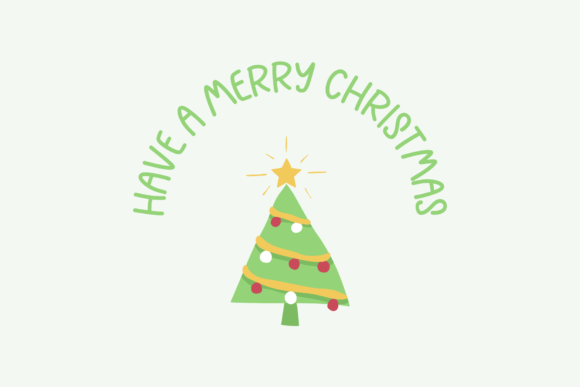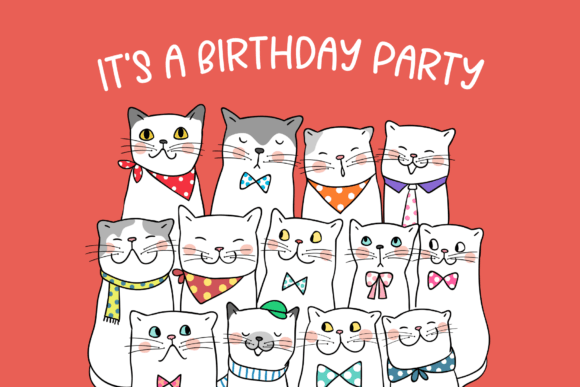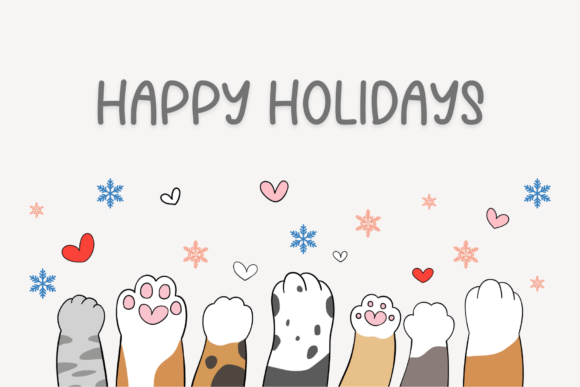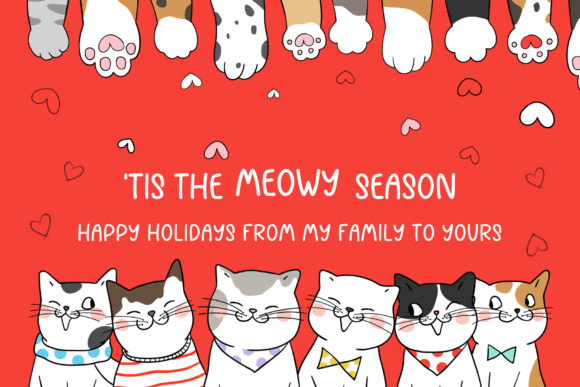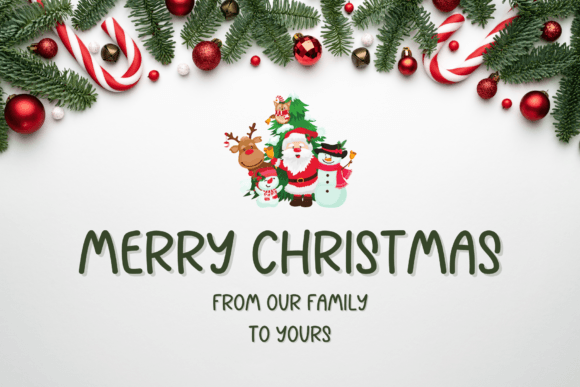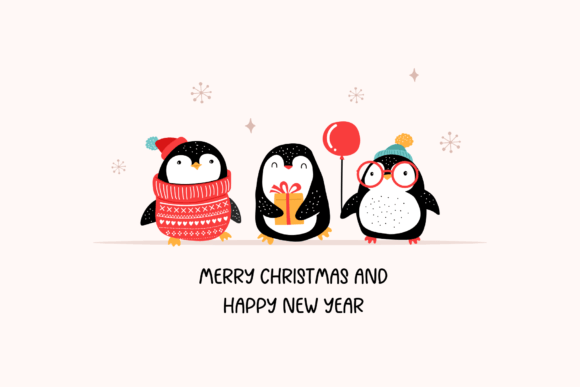
The Celyn Font: A Handwritten Gem for Creative Projects
Celyn is a handwritten font, meticulously crafted to bring a personal and artistic touch to your creative projects. Whether you’re a designer, crafter, or DIY enthusiast, this font will elevate your work and make it truly unique.
What I Love About Celyn ✨
- 💫 Unique, hand-crafted feel that adds a personal touch to any project
- 🎨 Versatile and adaptable, perfect for a wide range of creative applications
- 🤝 Exceptional craftsmanship, with attention to detail and a clear passion for typography
- ⚠️ Some users may find the font a tad too ornate for very formal or traditional projects
- 🤔 Limited availability of certain special characters or glyphs (though this is rare)
The Story Behind Celyn: Designer Inspiration 🌟
The Celyn font was created by a talented typographer with a passion for handwriting and lettering. Inspired by the beauty of handwritten script, the designer set out to craft a font that would bring a personal touch to creative projects. With meticulous attention to detail and a love for typography, the Celyn font was born.
Q: What makes Celyn unique? 🤔
A: Celyn’s unique blend of hand-crafted elegance and playfulness makes it stand out from other fonts. Its exceptional legibility and versatility make it perfect for a wide range of creative projects.
Q: Is Celyn suitable for digital and print projects? 📊
A: Absolutely! Celyn’s versatility makes it perfect for both digital and print projects, from social media graphics to business cards and more.